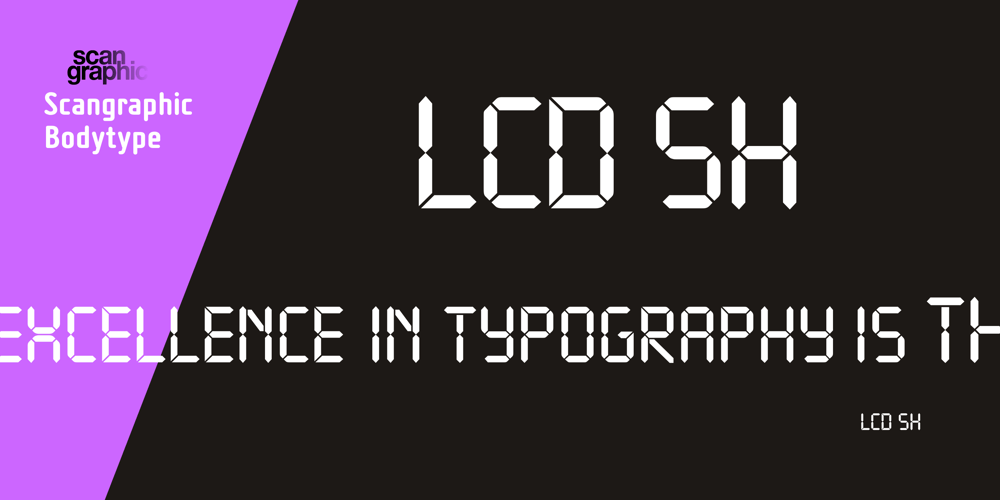
LCD SH
LCD SH font
LCD SH Font Family was designed by Alan Birch and published by Scangraphic Digital Type Collection. LCD SH contains 2 styles and family package options. Since the release of these fonts most typefaces in the Scangraphic Type Collection appear in two versions. One is designed specifically for headline typesetting (SH: Scangraphic Headline Types) and one specifically for text typesetting (SB Scangraphic Bodytypes). The most obvious differentiation can be found in the spacing. That of the Bodytypes is adjusted for readability. That of the Headline Types is decidedly more narrow in order to do justice to the requirements of headline typesetting. The kerning tables, as well, have been individualized for each of these type varieties. In addition to the adjustment of spacing, there are also adjustments in the design. For the Bodytypes, fine spaces were created which prevented the smear effect on acute angles in small typesizes. For a number of Bodytypes, hairlines and serifs were thickened or the whole typeface was adjusted to meet the optical requirements for setting type in small sizes. For the German lower-case diacritical marks, all Headline Types complements contain alternative integrated accents which allow the compact setting of lower-case headlines.